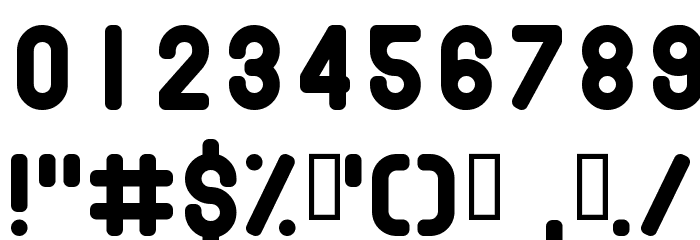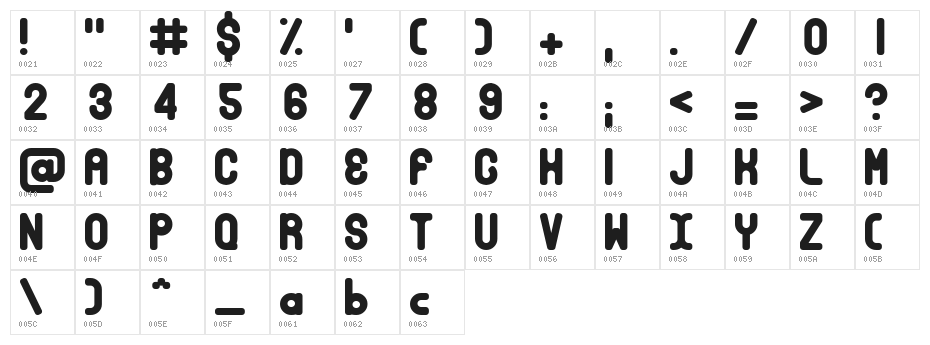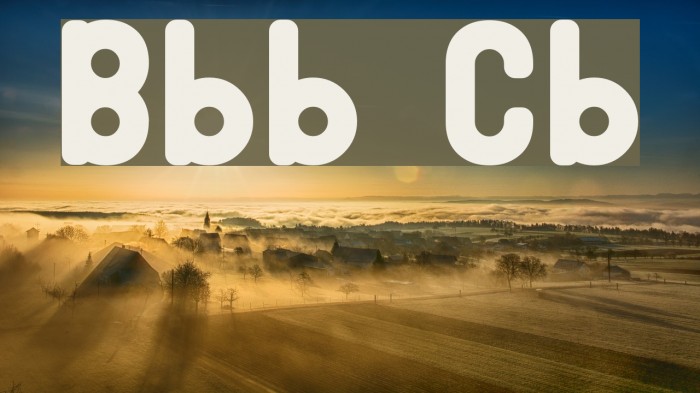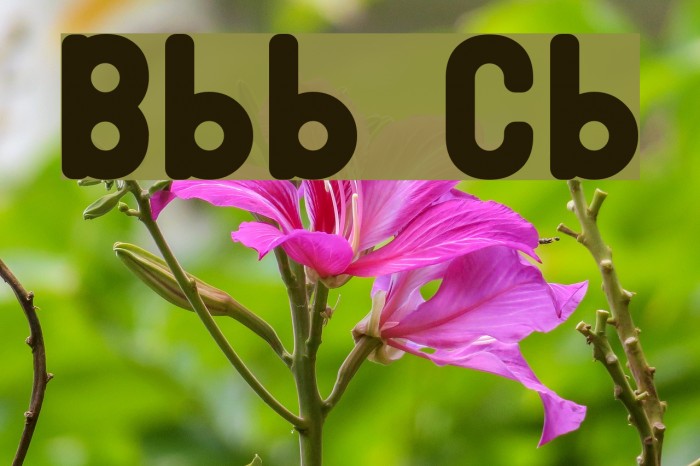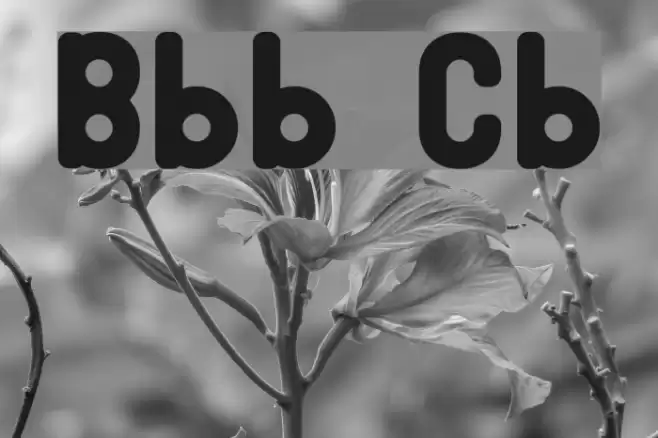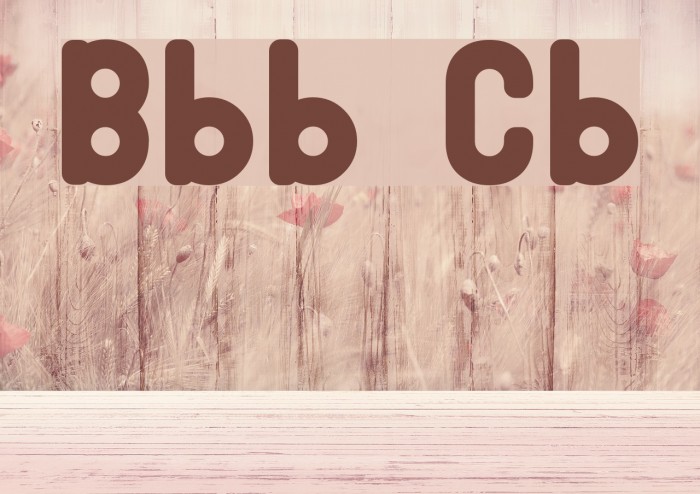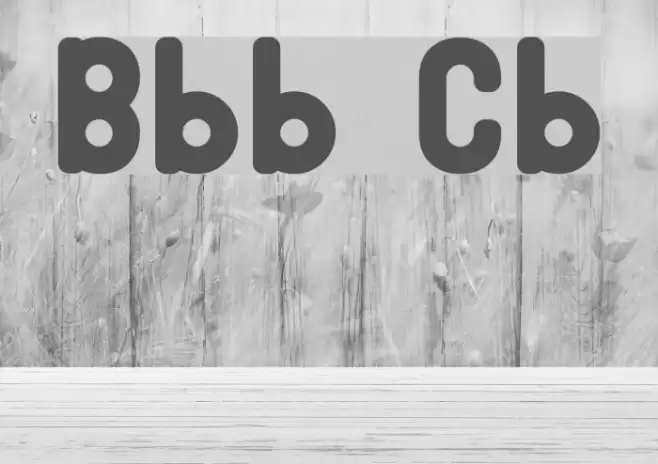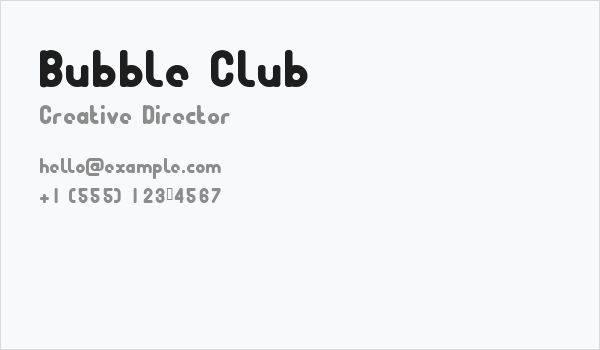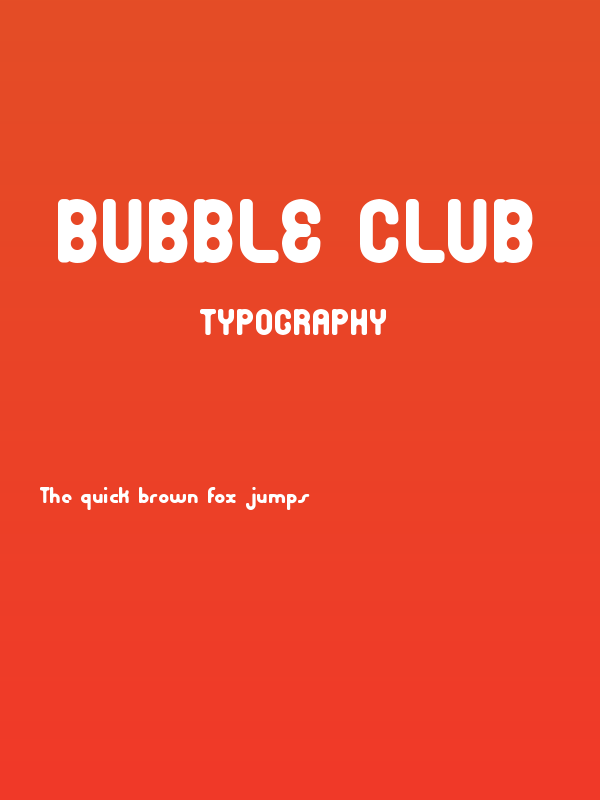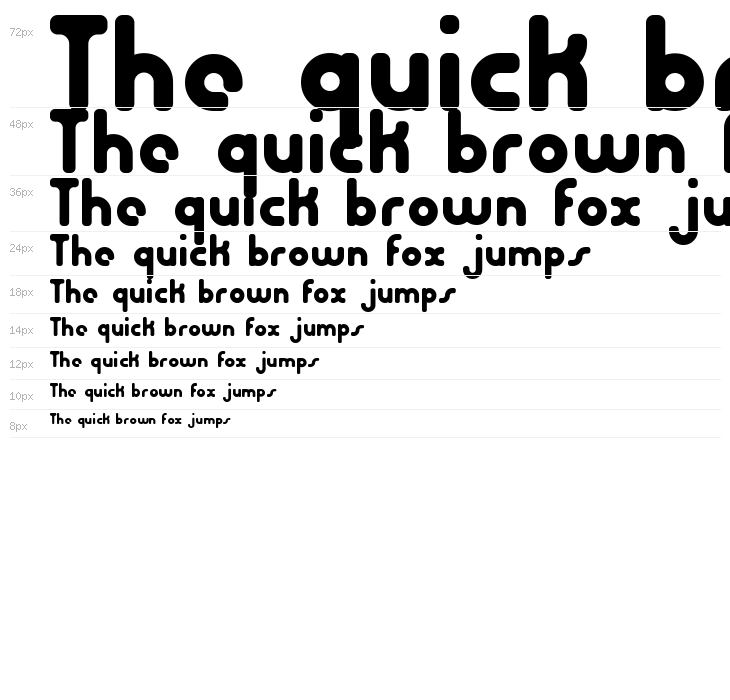
Bubble Club Font
Bubble Club Description
This playful and bold font features rounded, bubble-like characters that convey a sense of fun and approachability. The letters are uniformly thick, with a consistent stroke width that gives them a solid and substantial appearance. The rounded edges and smooth curves create a friendly and informal vibe, making it ideal for designs that aim to be inviting and engaging. The font's style is reminiscent of retro and pop culture aesthetics, which can add a nostalgic touch to various projects. Its legibility is maintained despite the playful design, making it suitable for both headlines and short text blocks.
| Overall Style | Playful, Retro |
| Proposed Projects | Perfect for children's books, playful branding, party invitations, and retro-themed designs. |